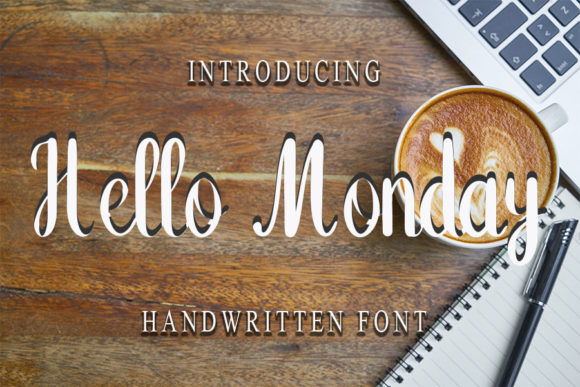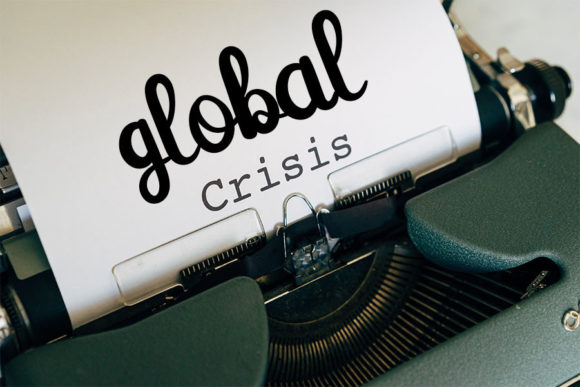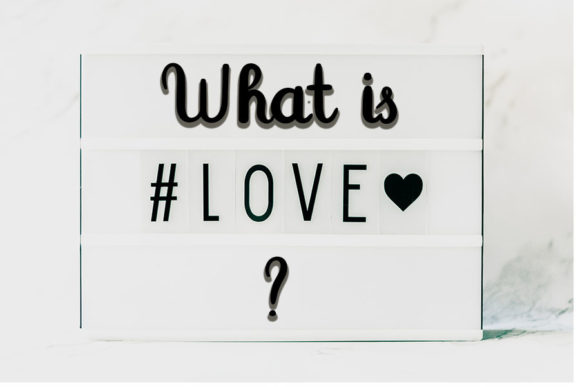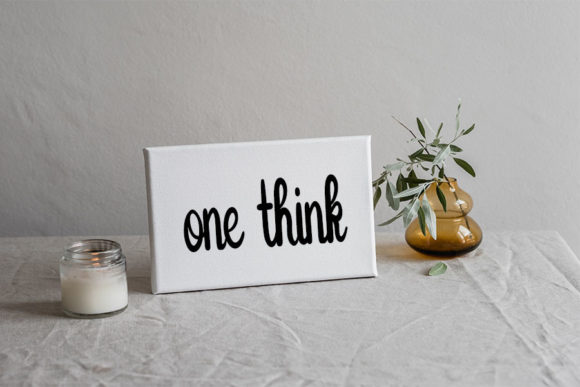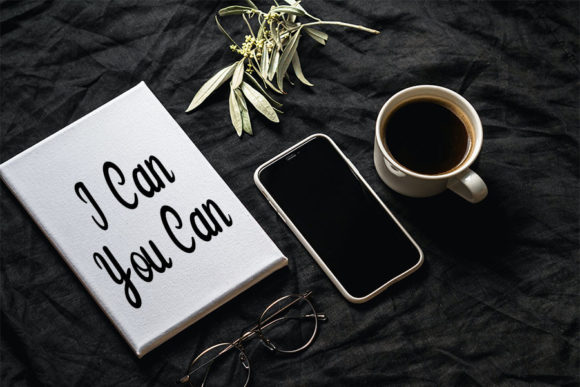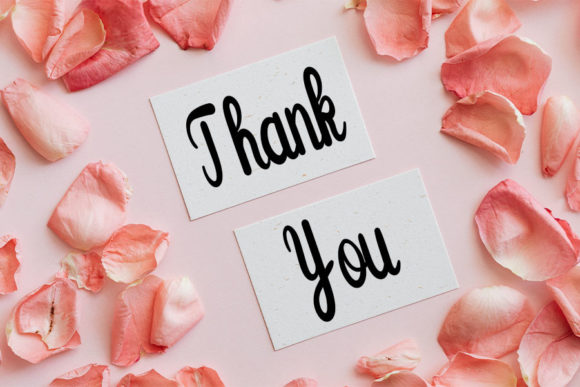
Hello Monday Font
About Hello Monday Font
Hello Monday is a slim and delicate handwritten font that exudes a dainty and joyful vibe. With its slender design, this font is an ideal choice for various applications, particularly for writing wedding invitations, cards, or any design that requires a romantic and personalized touch.
The slim and delicate qualities of Hello Monday make it well-suited for projects where a refined and graceful script is desired. Whether used in wedding invitations or other romantic-themed designs, this font adds an elegant and personalized touch to your text.
In wedding invitations, Hello Monday’s slender and delicate script creates a romantic and intimate atmosphere. The font’s joyful demeanor contributes to a positive and celebratory mood, setting the tone for a special occasion.
For cards and personalized designs, Hello Monday adds a touch of charm and individuality. The slim and delicate strokes of the font create an aesthetic that feels bespoke and tailored, making your designs stand out with a personalized touch.
The versatility of Hello Monday extends to various creative projects where a slim and delicate handwritten font is needed. Whether applied to stationery, social media graphics, or other design contexts, Hello Monday brings a sense of refinement and joy.
In summary, Hello Monday is more than just a font; it’s a slim and delicate handwritten design tool that enhances the beauty of your projects. Whether used in wedding invitations, cards, or various creative endeavors, Hello Monday adds a romantic, personalized touch that elevates your designs with grace and joy.